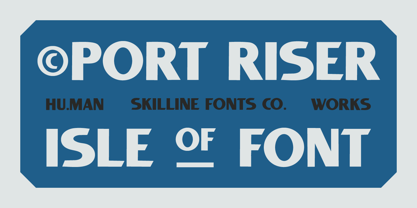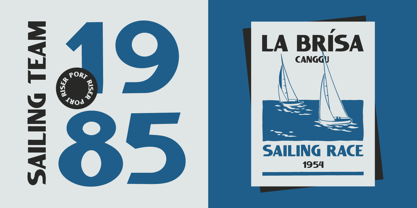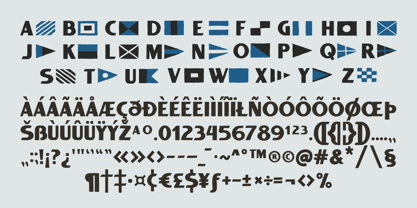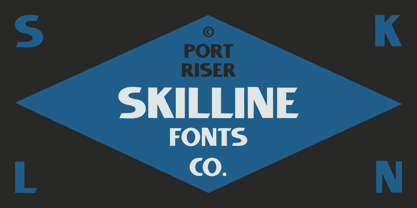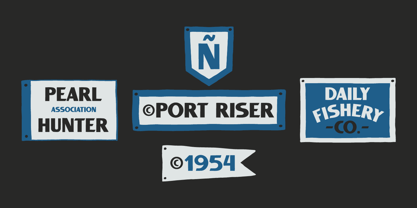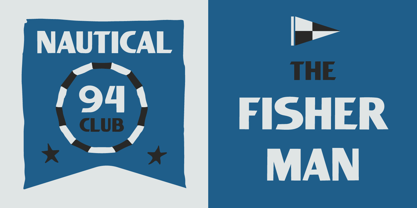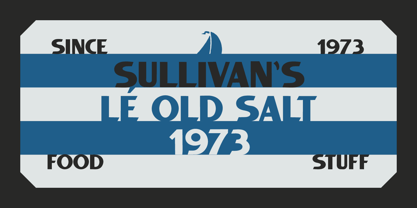
SFC Port Riser
by Skilline Fonts Co.
The SFC Port Riser Font Family was designed by Ahmad Nur Alfian and published by Skilline Fonts Co.. SFC Port Riser contains 1 styles. More about this family
Inspired by the typography found across harbors and sailing culture, Port Riser is a display font designed with clarity and purpose. Its bold letterforms reflect maritime communication, simple, readable, and built to stand out from a distance.
Perfect for identity design, labels, posters, and apparel with a nautical or coastal direction. Port Riser blends vintage influence with clean execution, making it suitable for both heritage-style branding and contemporary projects.
Includes uppercase, numerals, punctuation, and multilingual support